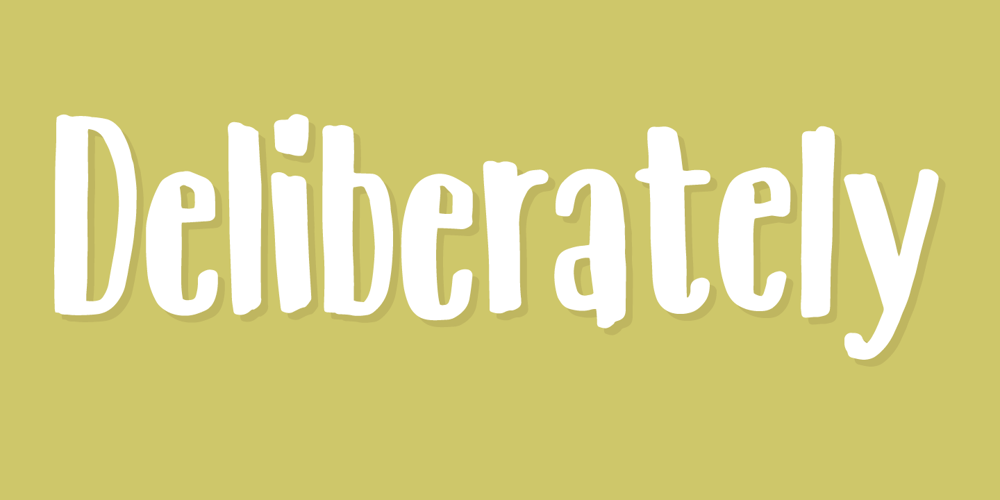
Deliberately Font Family was designed by Jakob Fischer and published by PizzaDude.dk. Deliberately contains 1 styles and family package options. Made with a wide pen, with a lot of love! Loads of international letters, and 6 different versions of each lowercase letter (these cycles automatically AS you type – just like magic!)